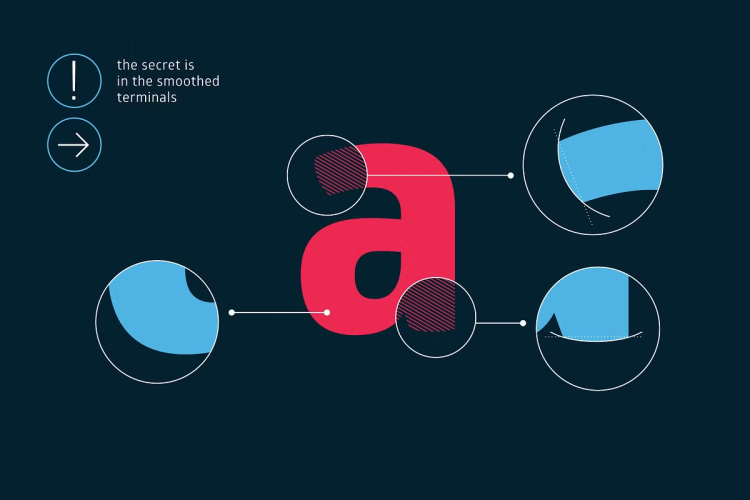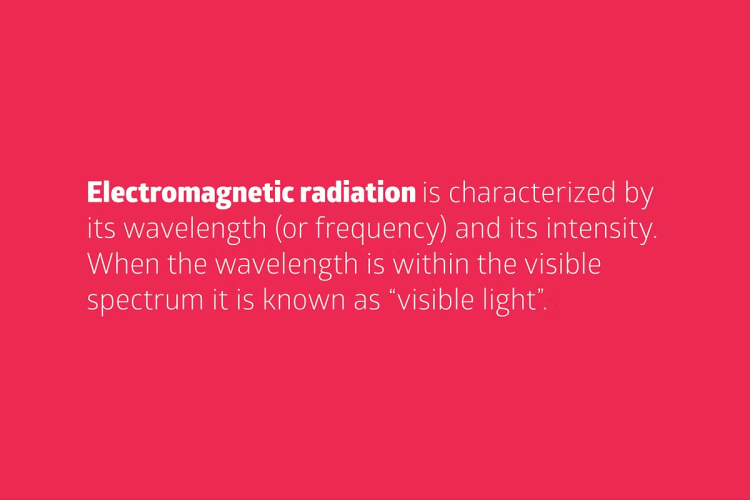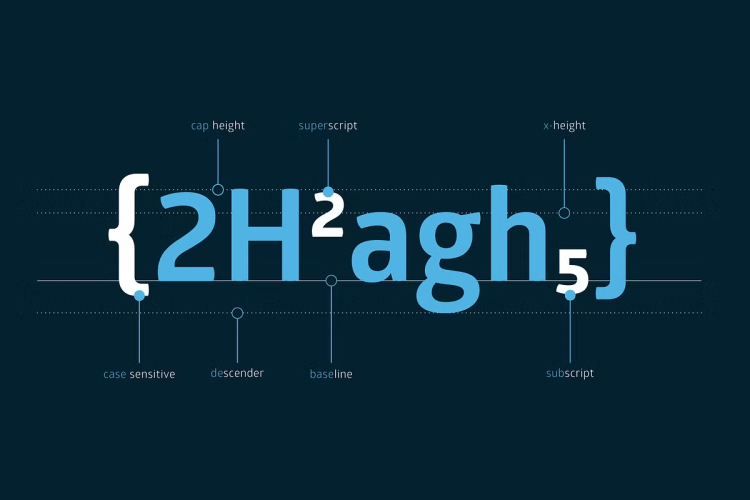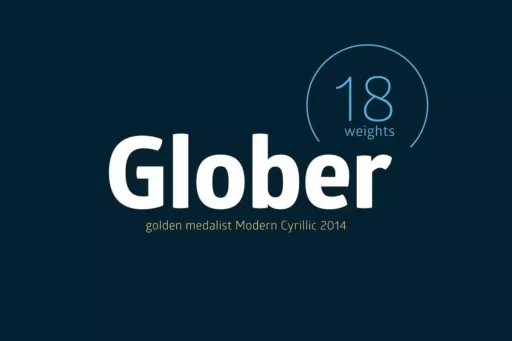
Glober Font
Glober is a modern geometric sans serif font family by the famous type foundry FontFabric. Glober font family includes 18 styles in total, among which there are 9 standard weight styles and 9 italics. This font is suitable for both web and print since its elements have distinct geometric shapes, appropriate spacing, and proper appearance across all devices.
This font family is basically based on the grotesque style of typography and has a quite sleek wedge with sharp geometrical edges. This is an ideal font to use in titles and texts whether they are small or big, brief or complex statements. This font is flexible enough for any kind of graphics design for both Internet and print media, as well as animations. This is suitable for t-shirts, posts, logos, and other merchandise items that you may want to put your artwork on.
Glober Font is a Sans Serif Fonts font that brings a professional and versatile look to your projects. Glober is a modern geometric sans serif font family by the famous type foundry FontFabric.